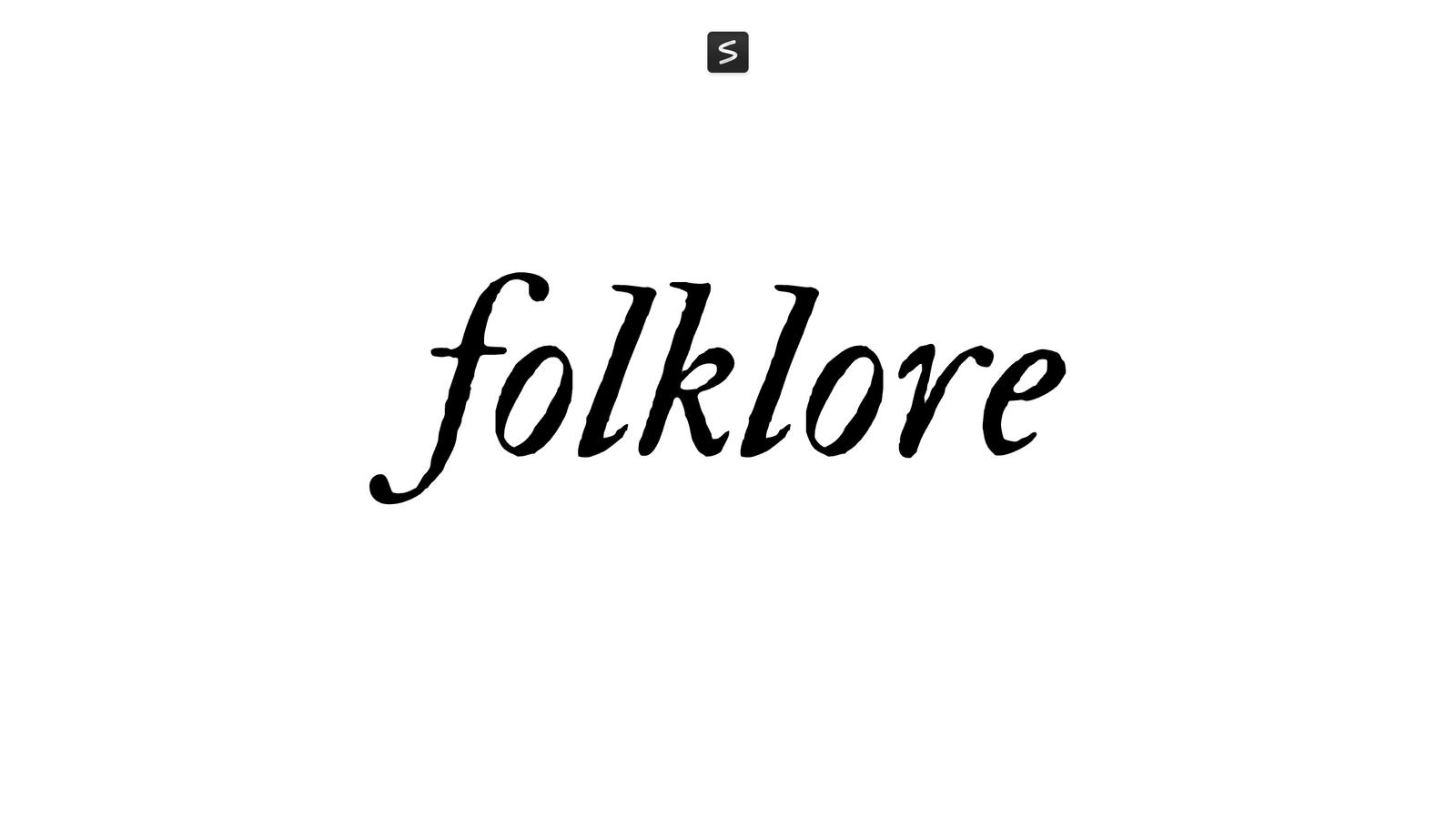
The IM Fell Types, designed by Igino Marini, are a collection of historical serif fonts based on 17th-century typefaces used by English printer John Fell. These fonts have a classic, old-world look that feels perfect for folklore, fantasy, and historical-themed projects.
Often used in folklore font generators, IM Fell gives your text an aged, antique feel—ideal for storybook titles, magical settings, or vintage-inspired design. The rough, hand-crafted style of the letters adds to its charm and authenticity.
IM Fell Types are free to use and come in several styles, including English, DW Pica, and Great Primer, each with its own unique texture and tone. Whether you’re working on a fantasy game, a tale from the past, or a moody poster, this font brings a touch of history to your design.